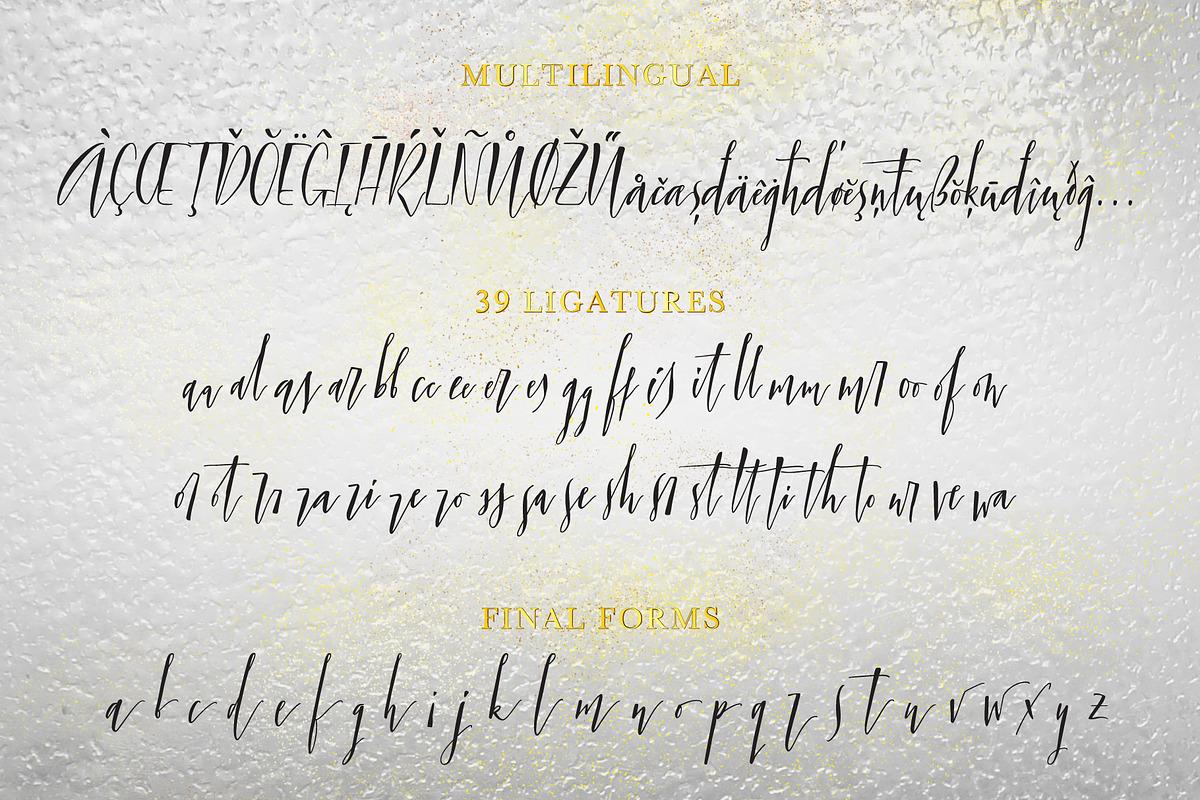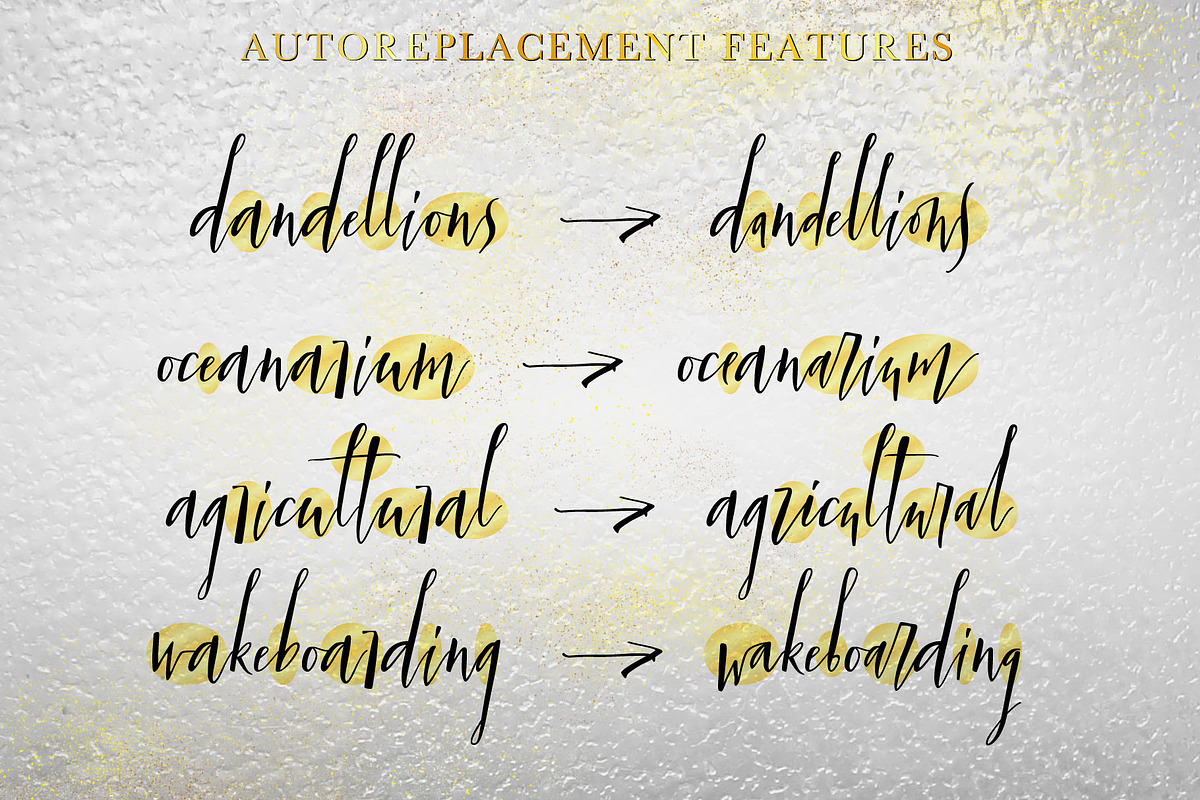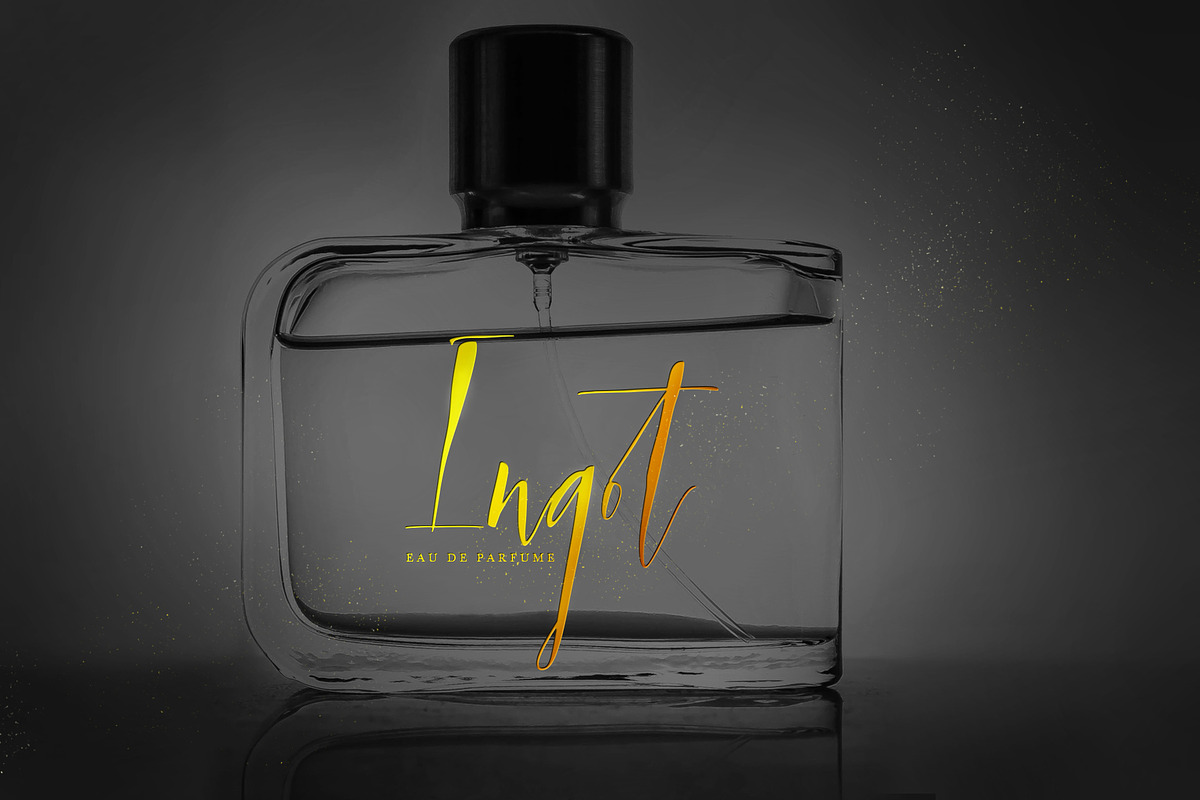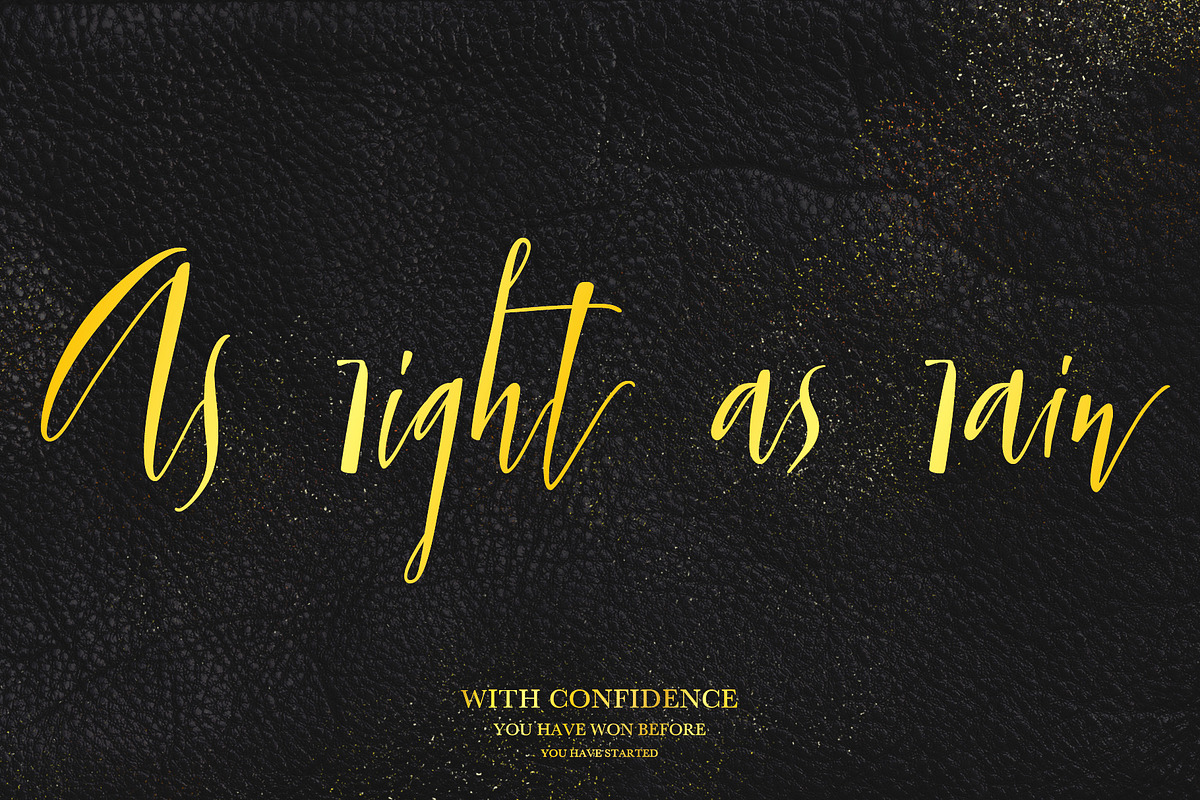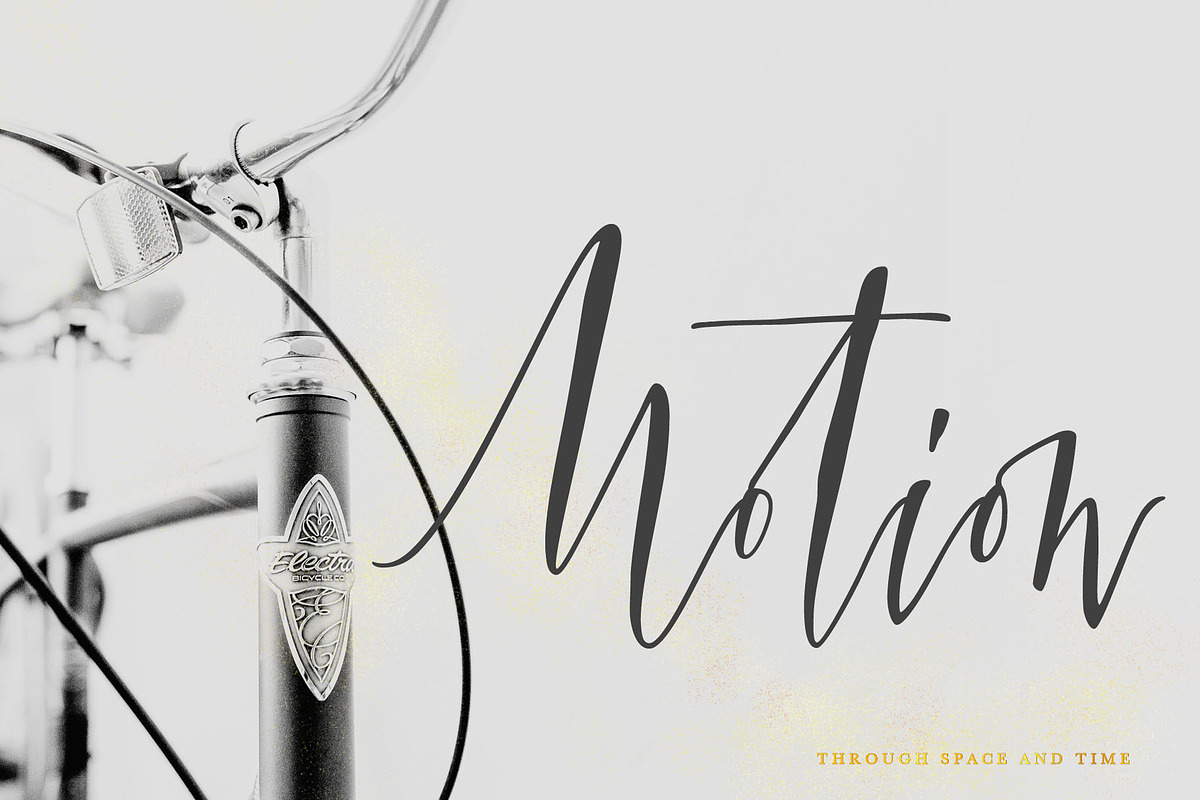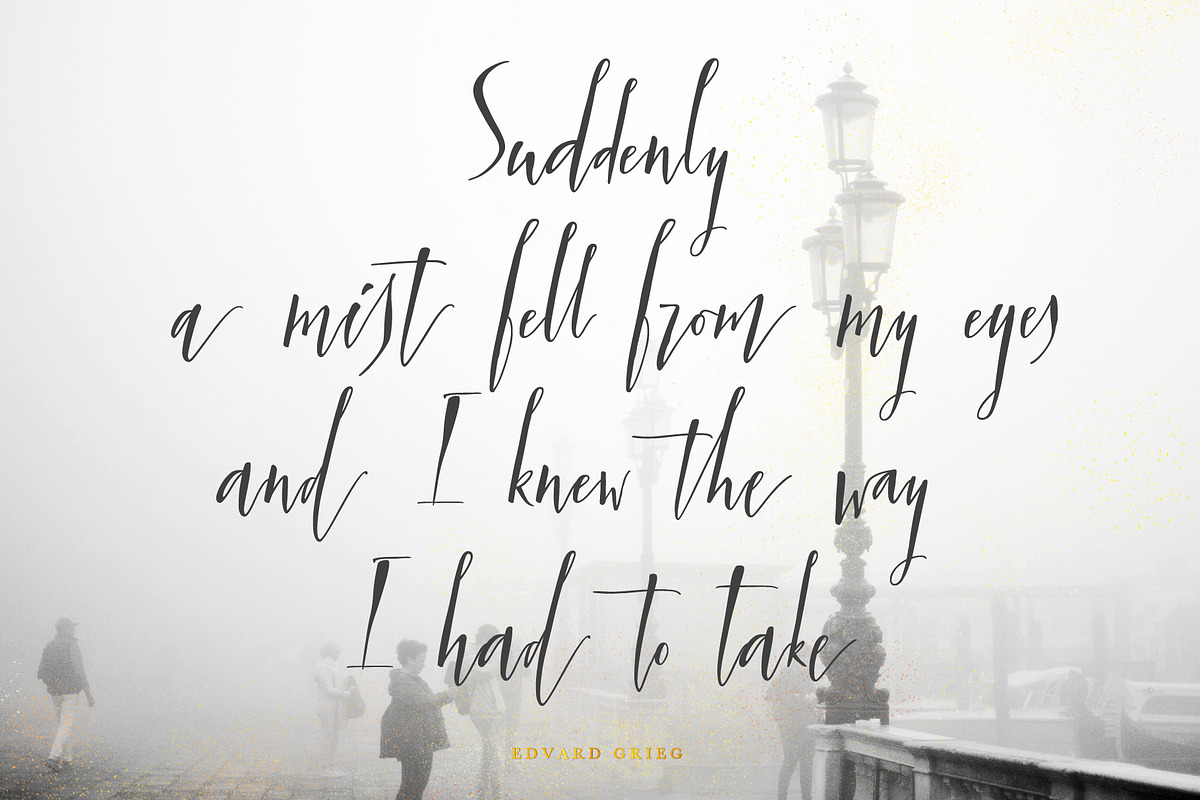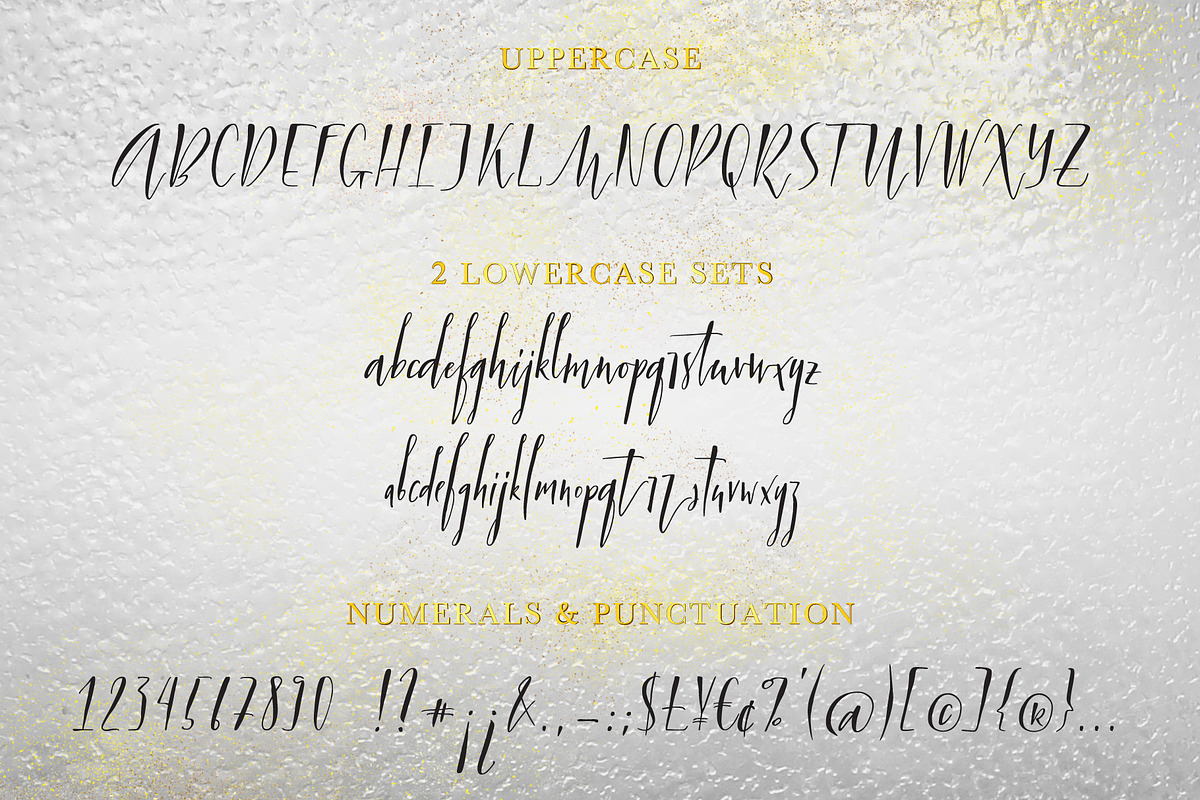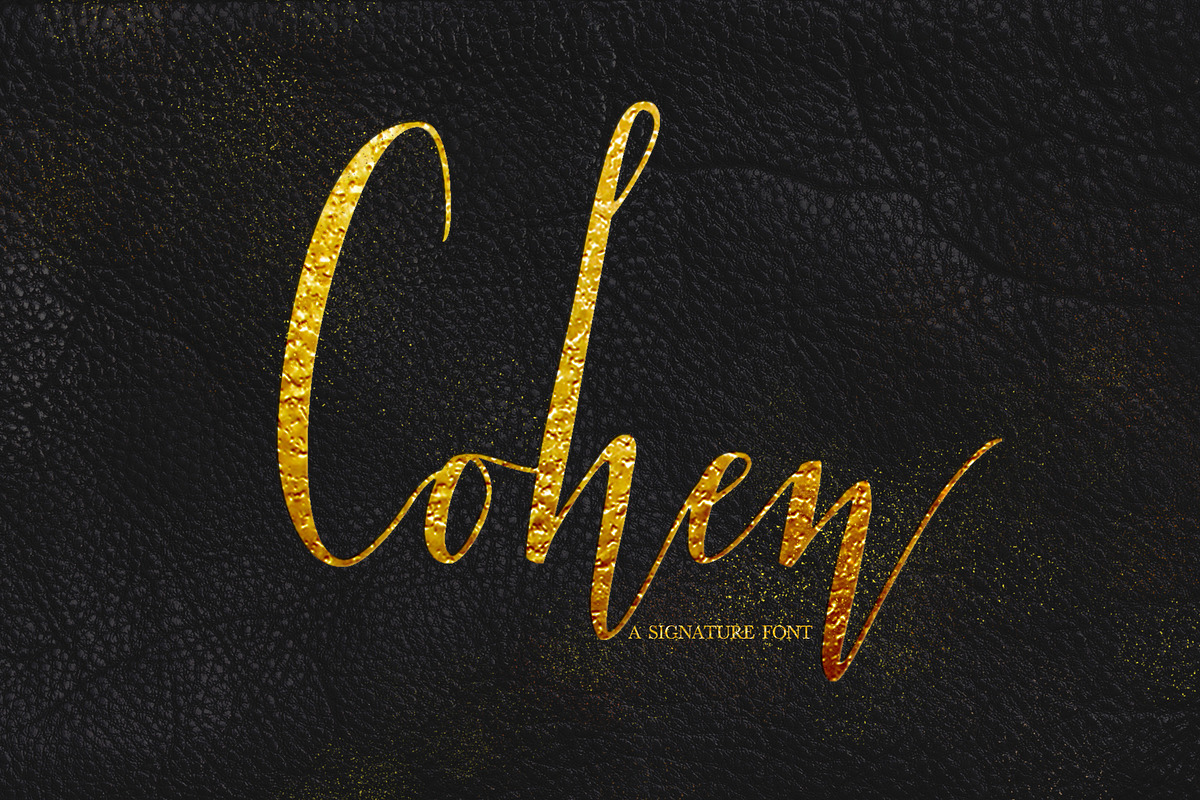
Cohen signature font
Hello! Let me introduce Cohen – a handwritten font named in memory of the great poet and singer Leonard Cohen. On the day he passed away I did my routine calligraphy practice and wrote a part of his song 'Night Comes On'. You may see this work in presentation pictures, and after time I designed a font based on this calligraphy. Cohen signature font is perfect for logos, branding, web, blog headlines, invitations, magazine and book design, product packaging – or for any text on postcards and on your favorite photos.
a standard set of characters with wide multilingual support: Western-, Central- and Eastern-European, Baltic, Turkish, Latin-type Africans, and Asian (94 languages in total)
two additional character sets: lowercase letters with alternates shapes and lowercase letters with a little swash - for the position at the end of a word
39 ligatures for double letters and frequent combinations
Cohen has a large number of embedded context-dependent auto-replacement features that give the text a natural, handwritten look and correct inharmonious combinations of letters. These features work well in many apps (even simple ones like Notepad/TextEdit), and if you need to customize their application – you could use programs that support OpenType features (for example, Adobe apps or CorelDraw). All these additional glyphs are PUA-encoded, so if your software does not support OpenType — you could access them through Character Map (Windows) or Font Book (Mac).